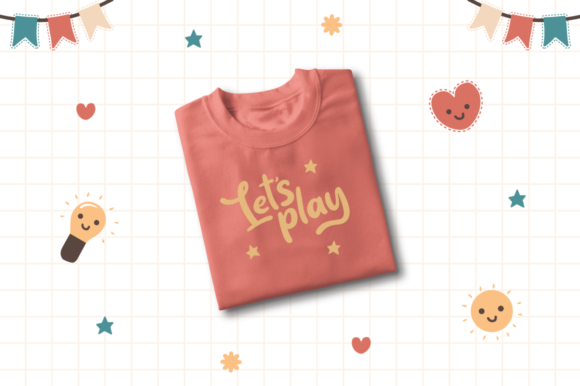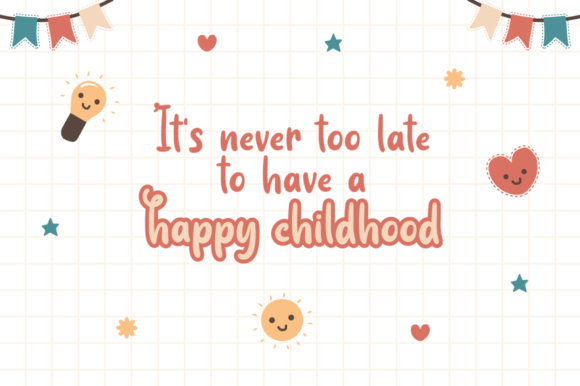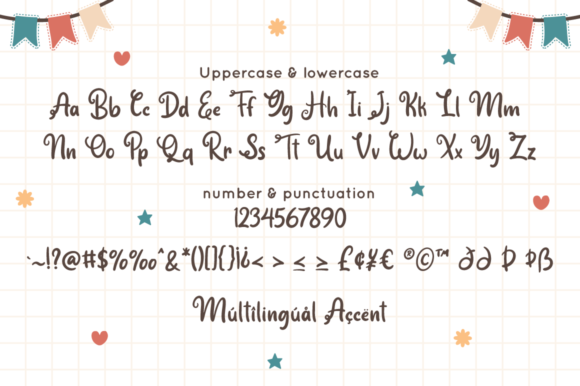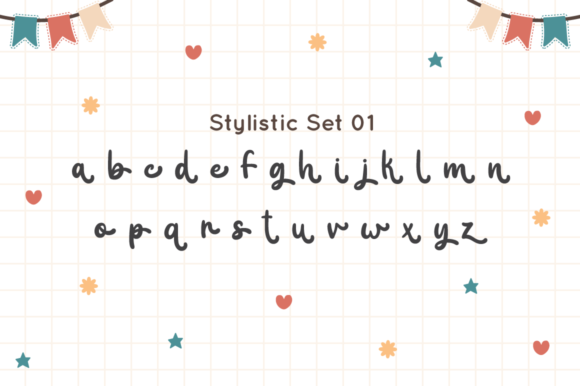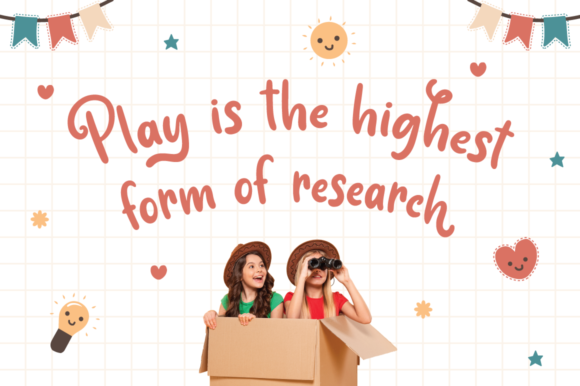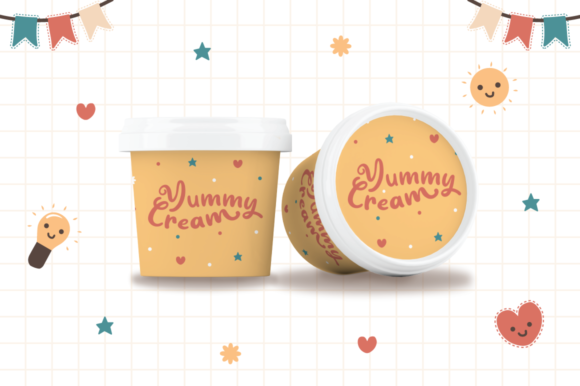
Crafty Saturday Font: Elevate Your Designs with Elegance and Whimsy
Are you a designer or crafter looking for a unique and captivating font to elevate your creative projects? Look no further than the Crafty Saturday Font, an elegant and dainty handwritten font that features sweet and delicate swashes. This original look is perfect for a wide range of crafty ideas, from letterheads and titles to stationery and more.
The Charm of Crafty Saturday Font
Crafty Saturday Font is a beautiful, hand-crafted font that exudes a sense of whimsy and sophistication. Its delicate swashes and elegant letterforms make it perfect for designs that require a touch of refinement and personality. Whether you’re creating wedding invitations, branding materials, or social media graphics, this font is sure to impress.
Key Features of Crafty Saturday Font
- Elegant and dainty handwritten font: Crafty Saturday Font features a beautiful, hand-crafted design that is both elegant and delicate.
- Sweet and delicate swashes: The font’s swashes add a touch of whimsy and personality to your designs.
- Versatile: Crafty Saturday Font is perfect for a wide range of crafty ideas, from letterheads and titles to stationery and more.
Design Ideas with Crafty Saturday Font
Crafty Saturday Font is a versatile font that can be used in a variety of design projects. Here are a few ideas to get you started:
- Wedding invitations: The font’s elegant and delicate design makes it perfect for wedding invitations and other wedding-related materials.
- Branding materials: Use Crafty Saturday Font to create unique and eye-catching branding materials, such as logos, business cards, and letterheads.
- Stationery: The font is perfect for creating beautiful stationery, including notebooks, journals, and greeting cards.
- Social media graphics: Use Crafty Saturday Font to create eye-catching social media graphics, including Facebook and Instagram posts.
Why Choose Crafty Saturday Font?
There are many fonts available, but Crafty Saturday Font stands out from the rest. Here are a few reasons why:
- Unique design: Crafty Saturday Font features a unique and original design that will set your designs apart from the rest.
- Elegant and sophisticated: The font’s elegant and sophisticated design makes it perfect for designs that require a touch of refinement.
Tips for Using Crafty Saturday Font
Here are a few tips for using Crafty Saturday Font:
- Use it sparingly: While Crafty Saturday Font is beautiful, it can be overwhelming if used too much. Use it sparingly to add a touch of elegance to your designs.
- Pair it with other fonts: Crafty Saturday Font pairs well with other fonts, including serif and sans-serif fonts. Experiment with different pairings to find the perfect combination.
- Experiment with colors: The font looks beautiful in a variety of colors, from soft pastels to bold brights. Experiment with different colors to find the perfect look for your design.
Crafty Saturday Font is a beautiful and versatile font that is perfect for designers and crafters looking to add a touch of elegance and whimsy to their designs. With its delicate swashes and elegant letterforms, this font is sure to impress. Whether you’re creating wedding invitations, branding materials, or social media graphics, Crafty Saturday Font is the perfect choice.